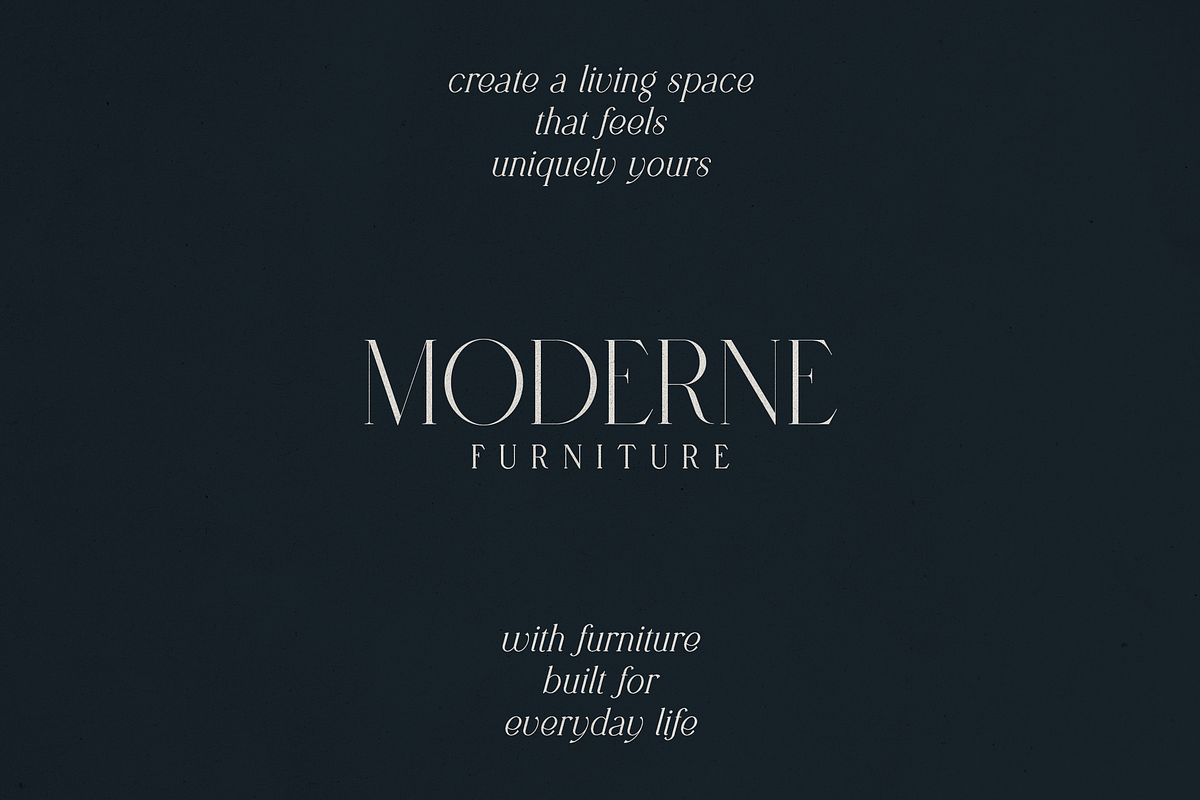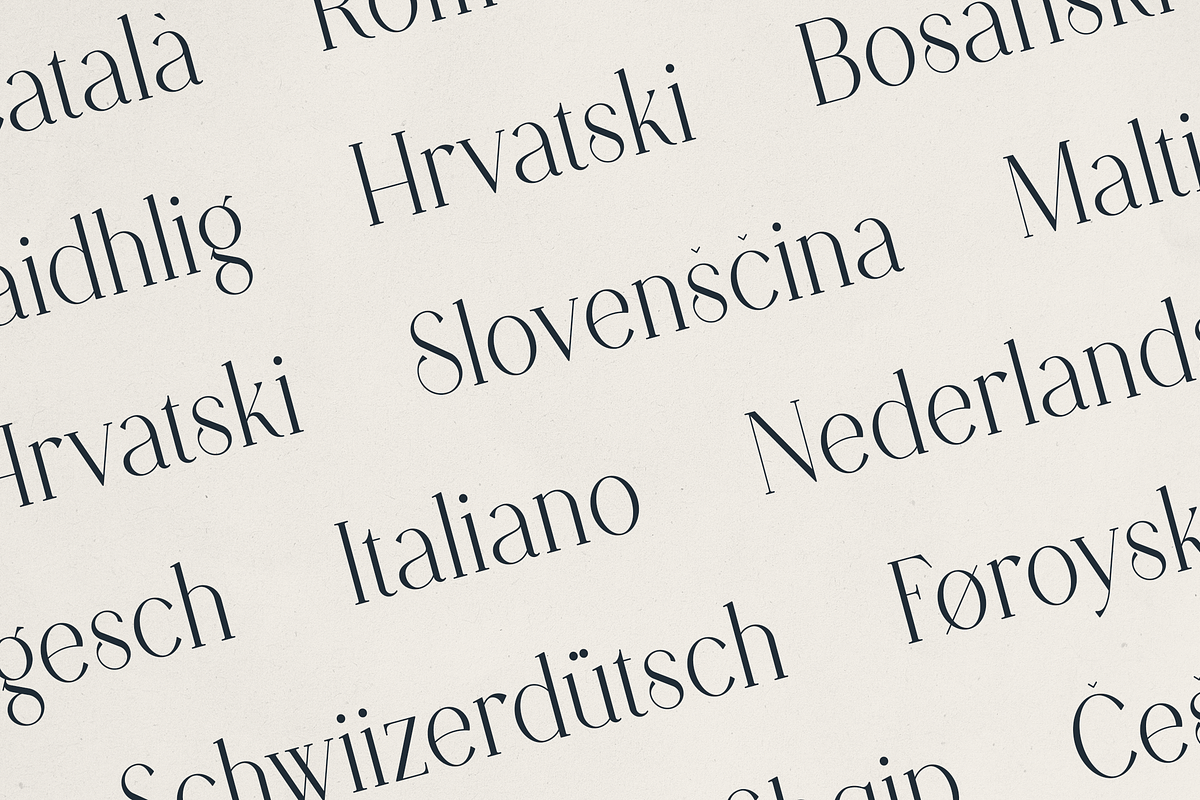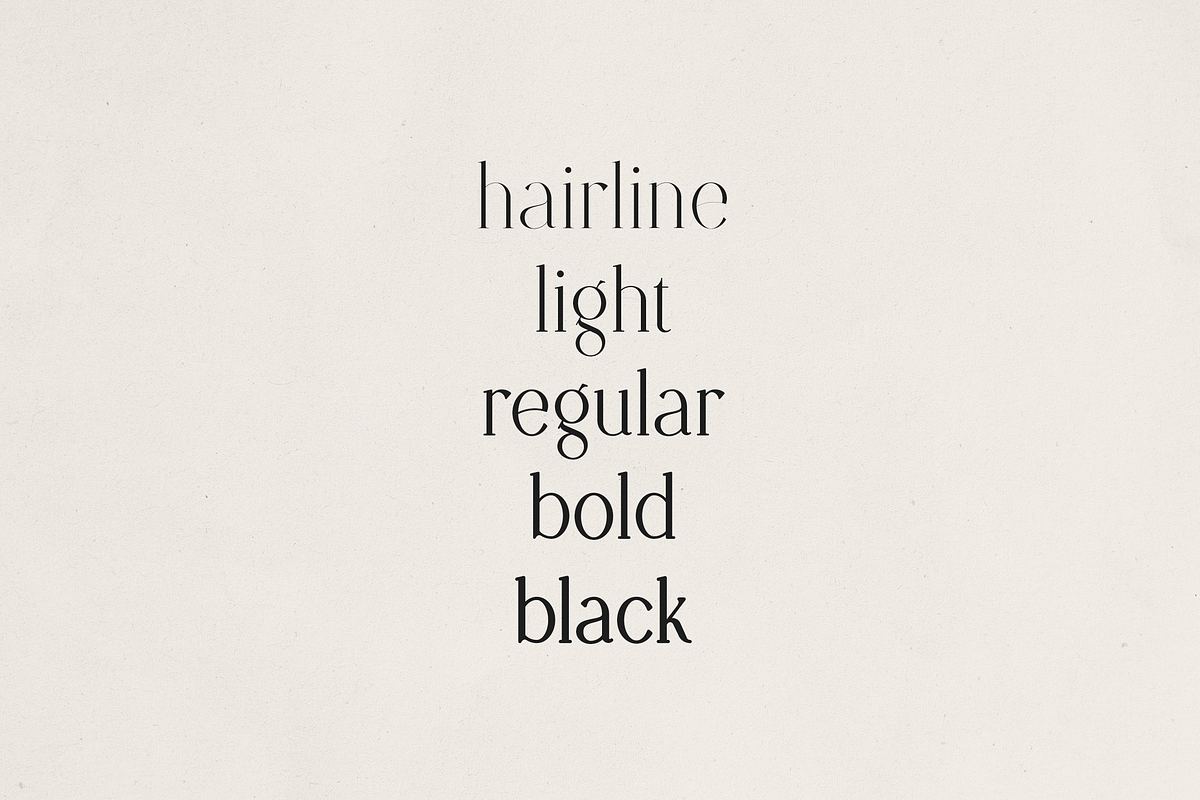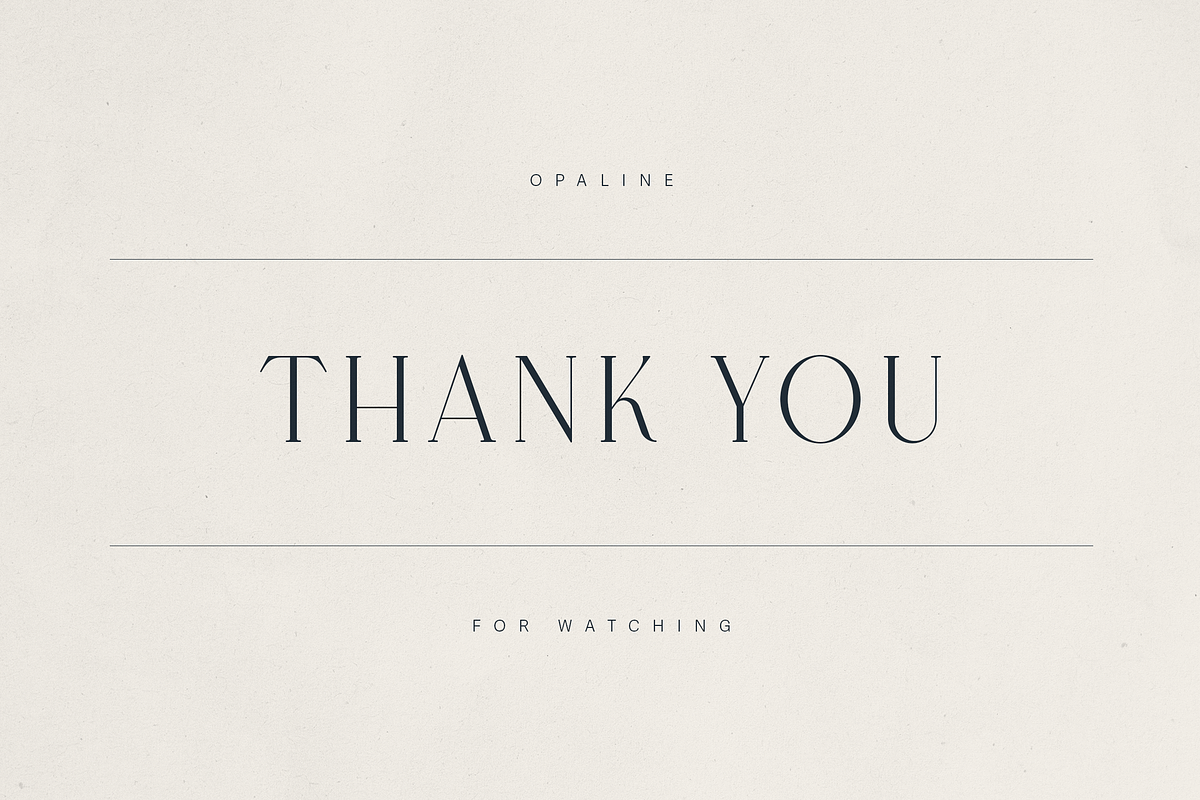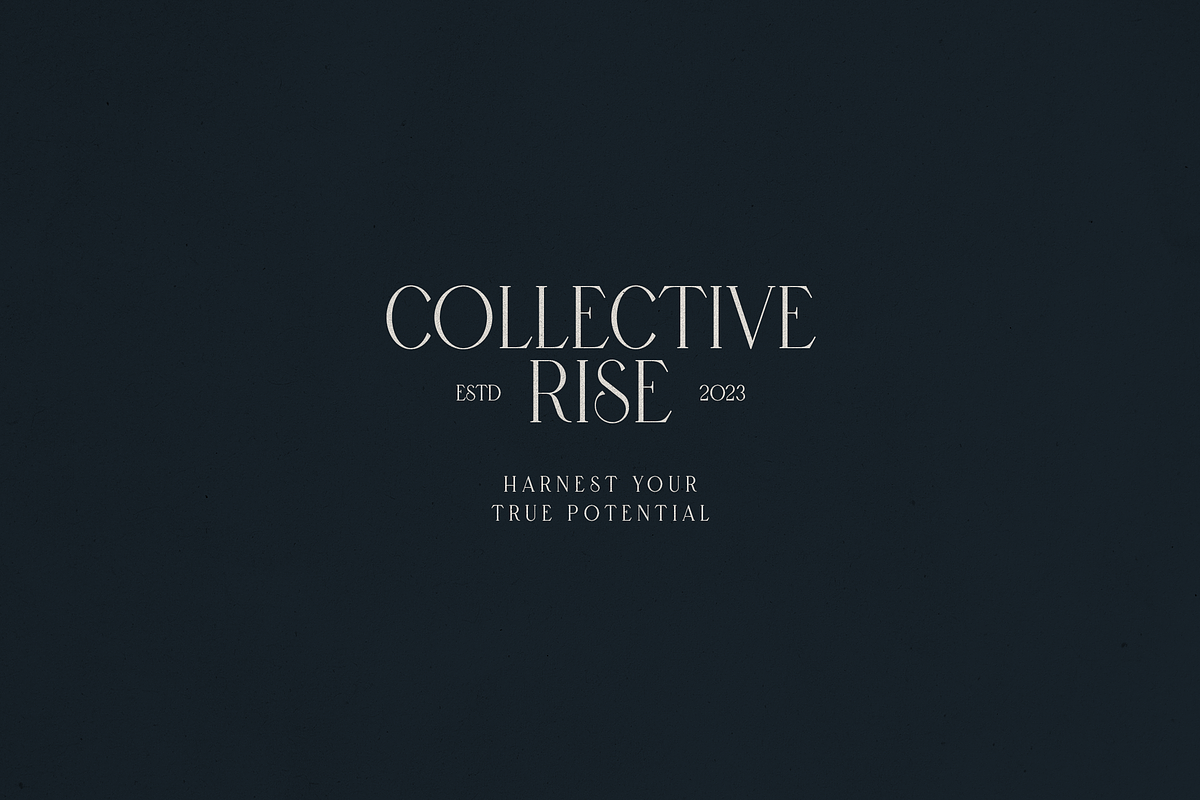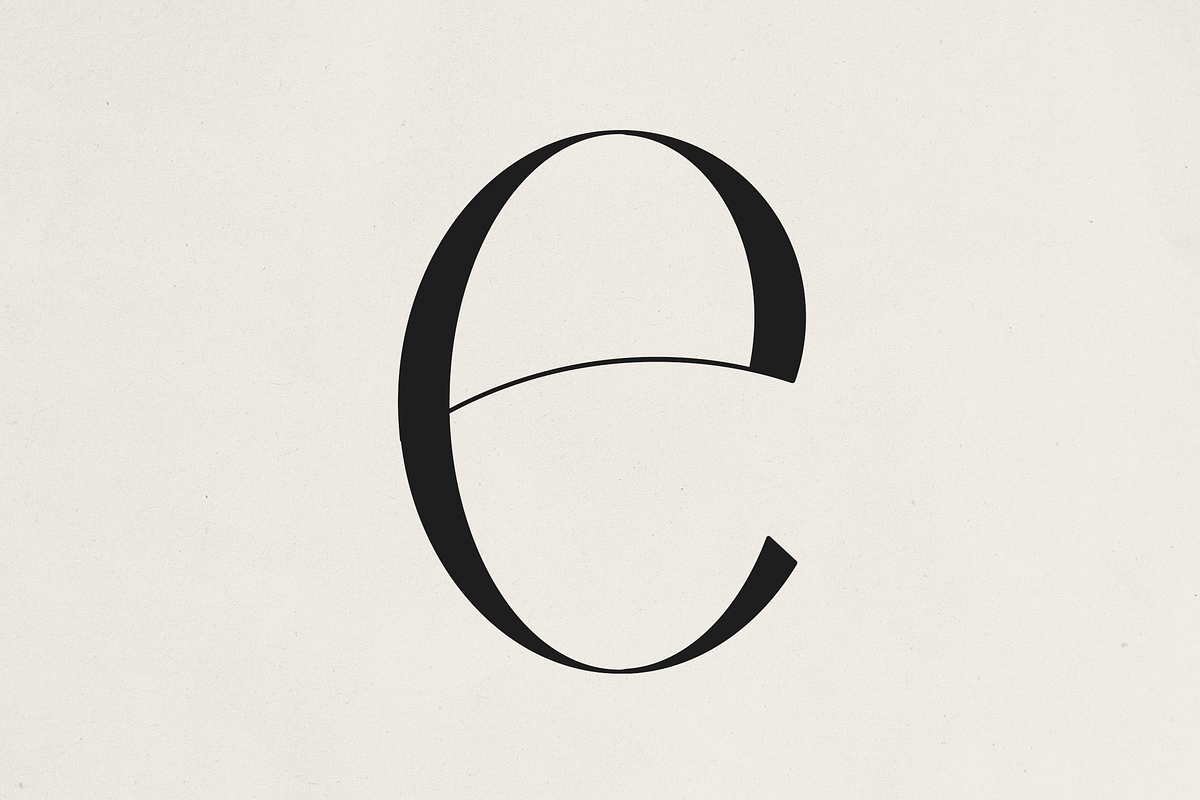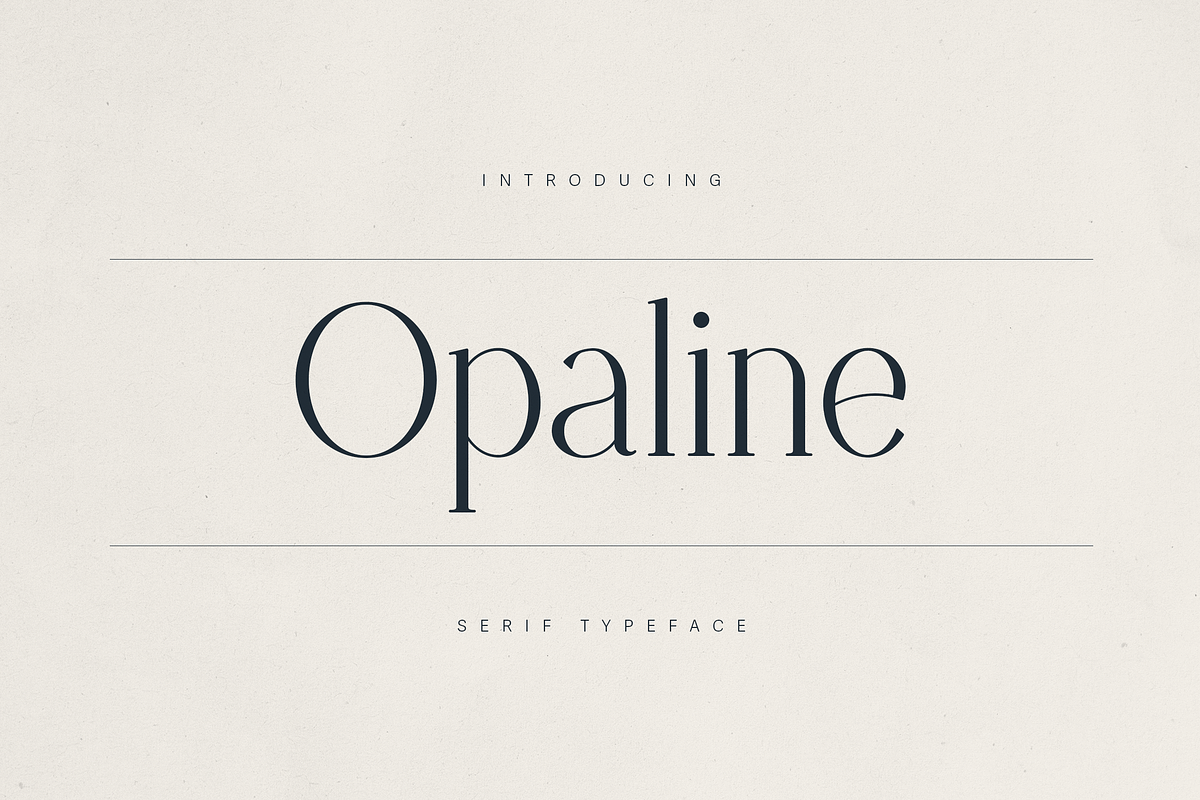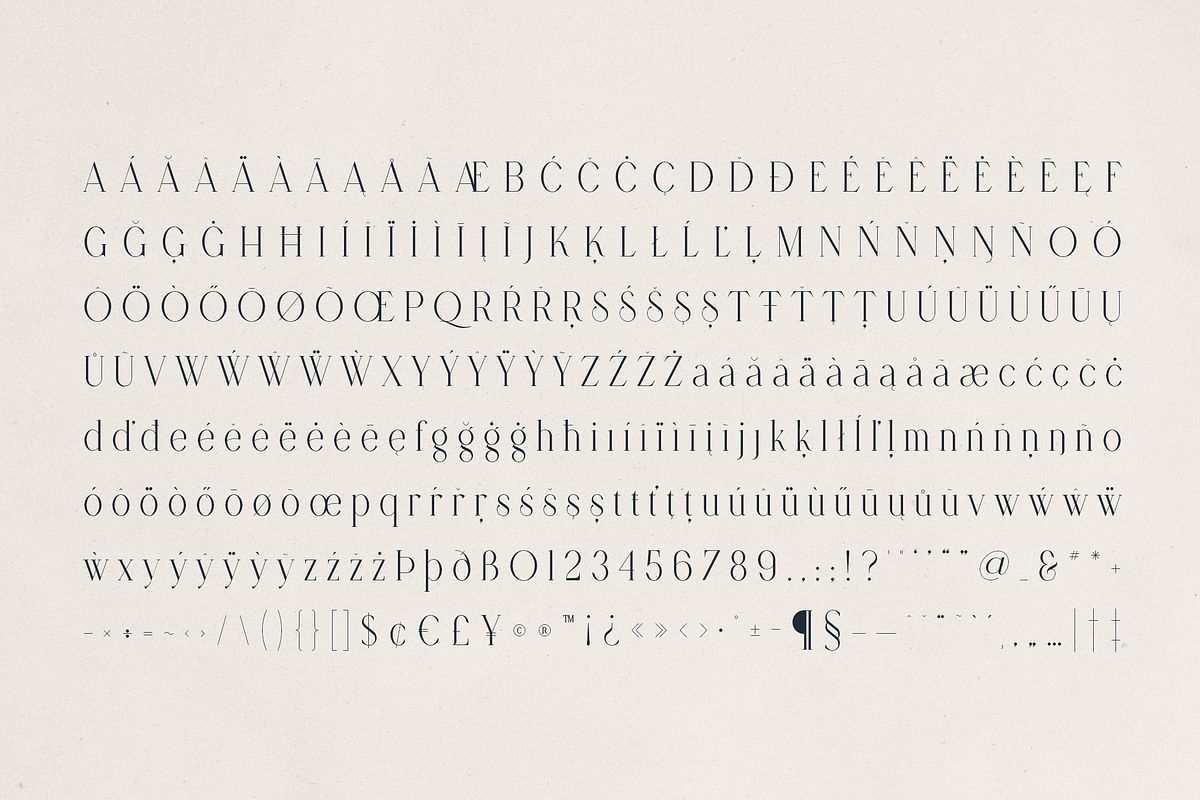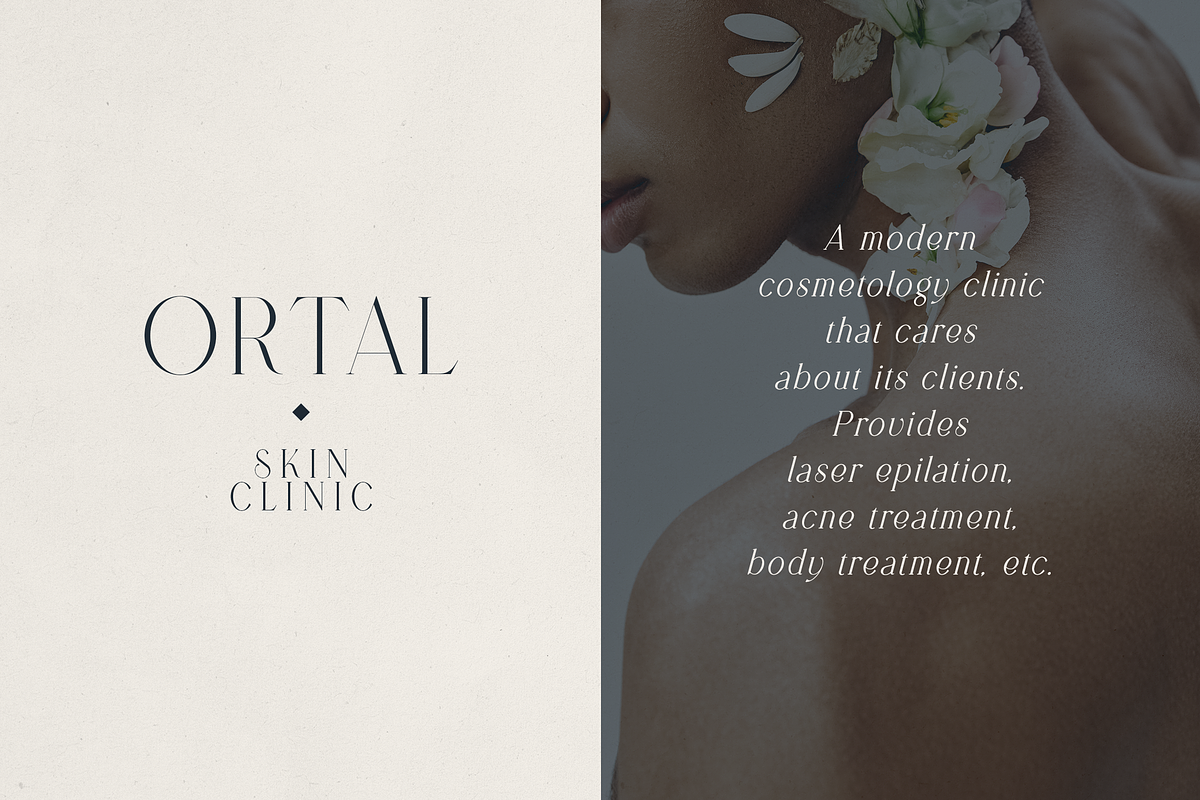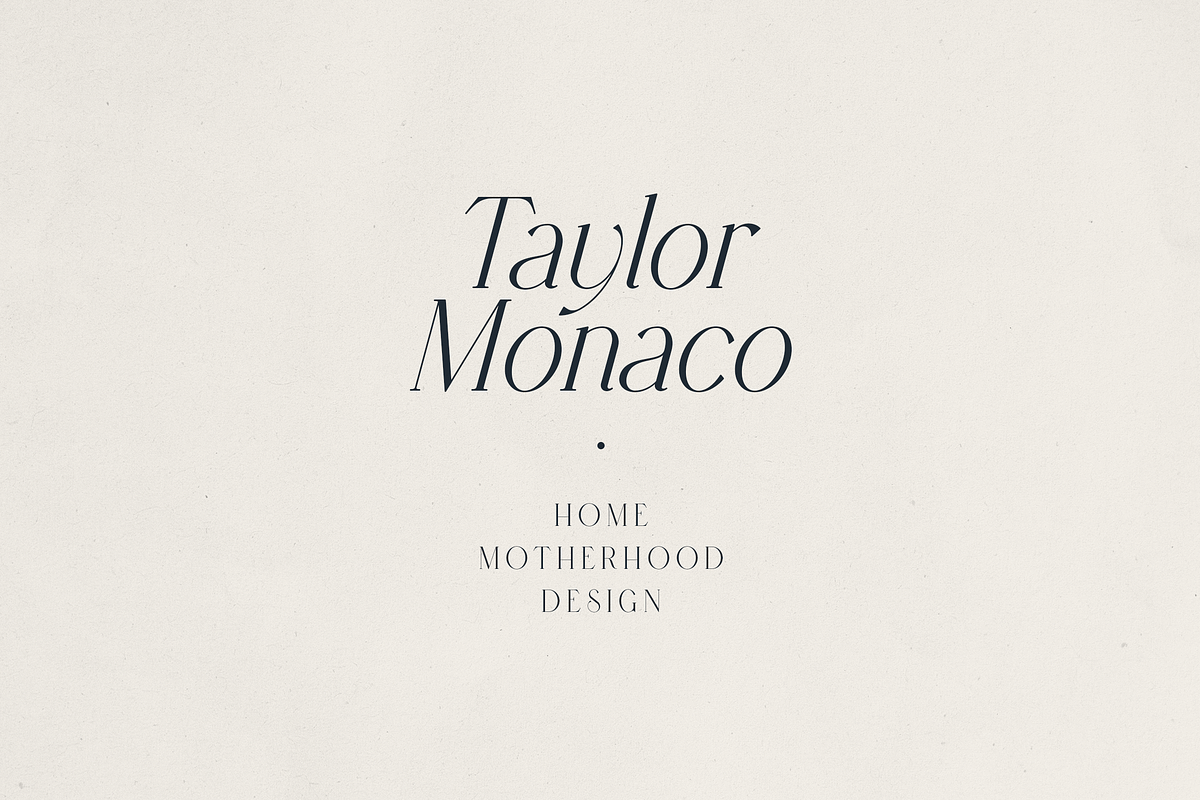
Opaline – Elegant Modern Serif Font
Opaline – Elegant Modern Serif Typeface
Opaline is a refined and elegant serif typeface designed for luxury branding, editorial design, fashion, beauty, and lifestyle projects. With its high-contrast strokes, graceful curves, and minimalist aesthetic, Opaline brings sophistication and clarity to any visual composition.
Crafted to balance modern sensibilities with classic charm, Opaline includes multiple weights from Hairline to Black, making it perfect for logos, headlines, social media, packaging, and website design. It supports over 85 languages and comes with extensive punctuation and symbols.
Whether you're creating a high-end beauty brand, a chic furniture label, or an elegant personal identity, Opaline adds a touch of timeless elegance to your typography.
- High-contrast modern serif
- 5 weights: Hairline, Light, Regular, Bold, Black
- True italics
- Multilingual support (85+ languages)
- Perfect for branding, fashion, editorial, and web design
Ideal For: Luxury brands, fashion designers, skin clinics, homeware labels, magazines, influencers, and creators looking for a clean yet expressive serif typeface.